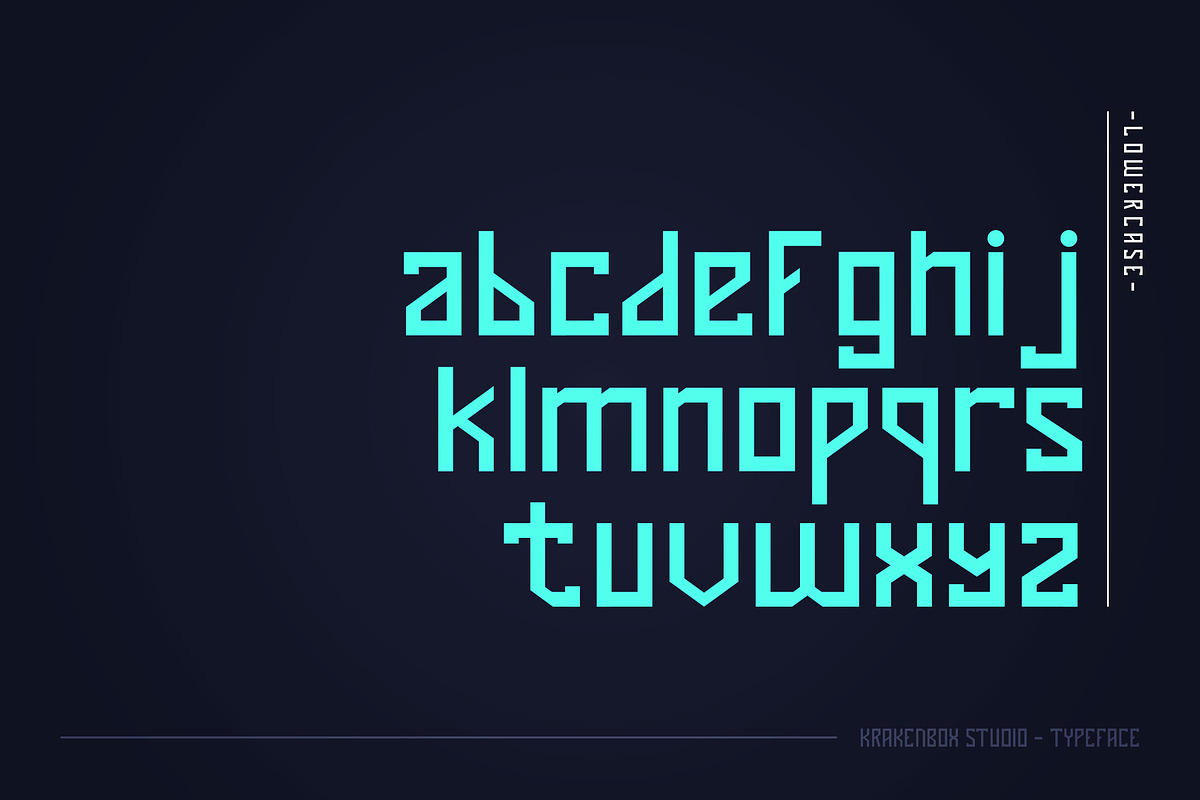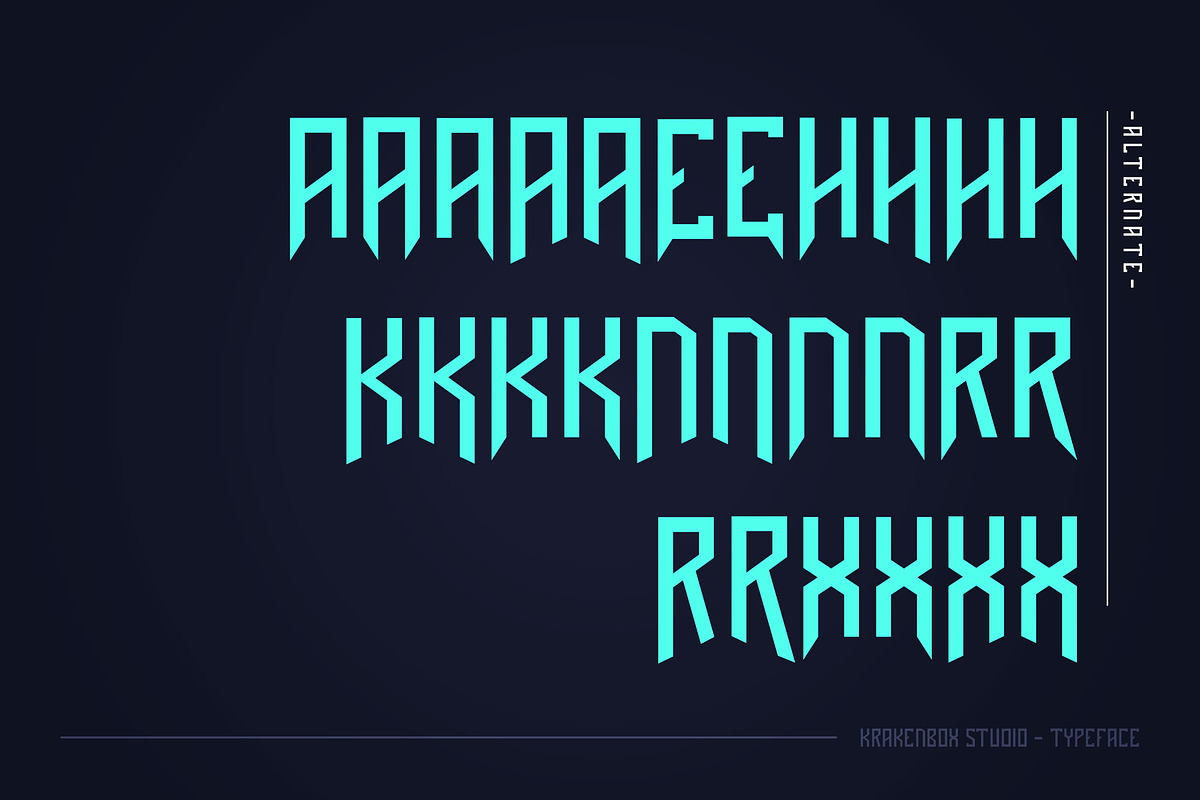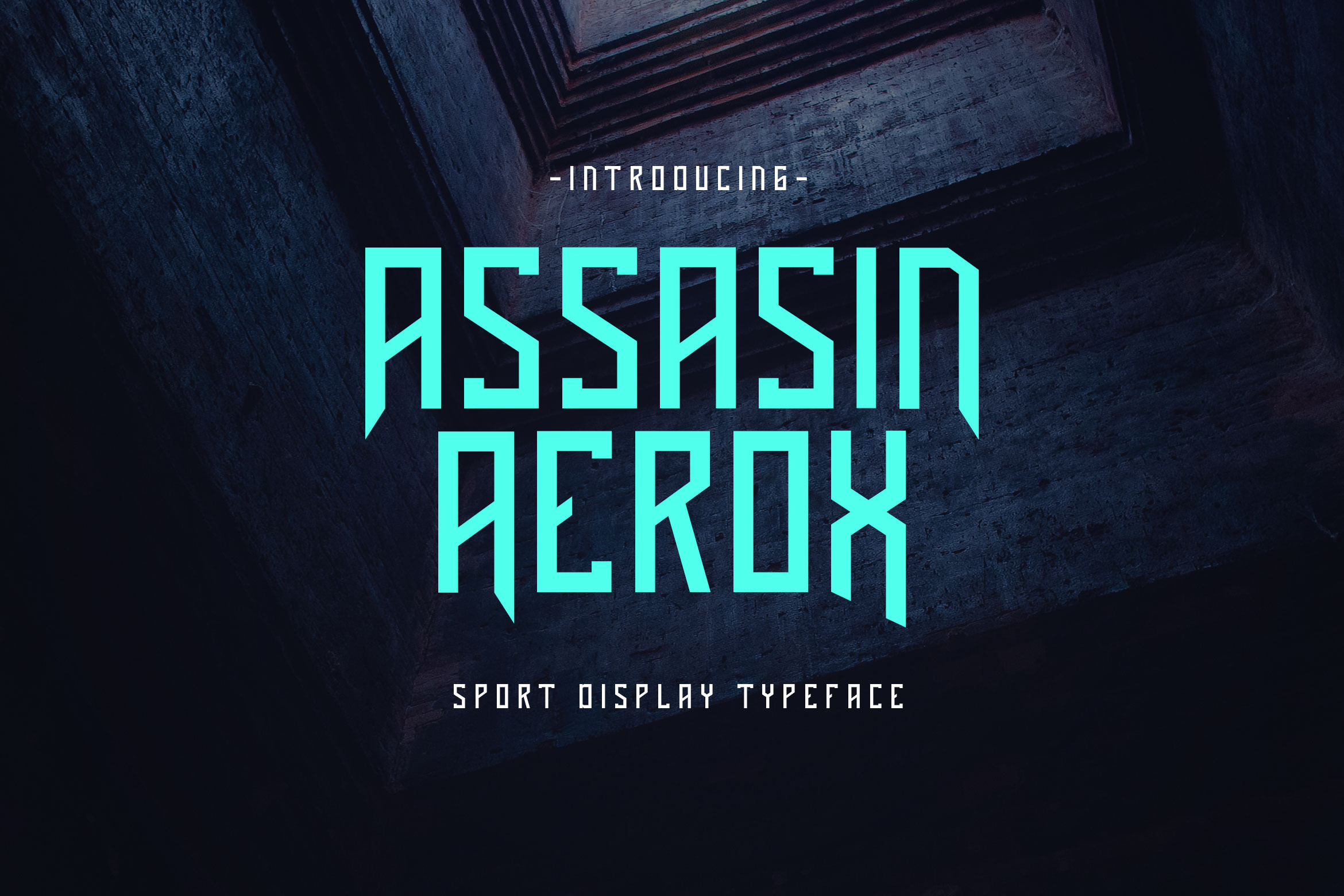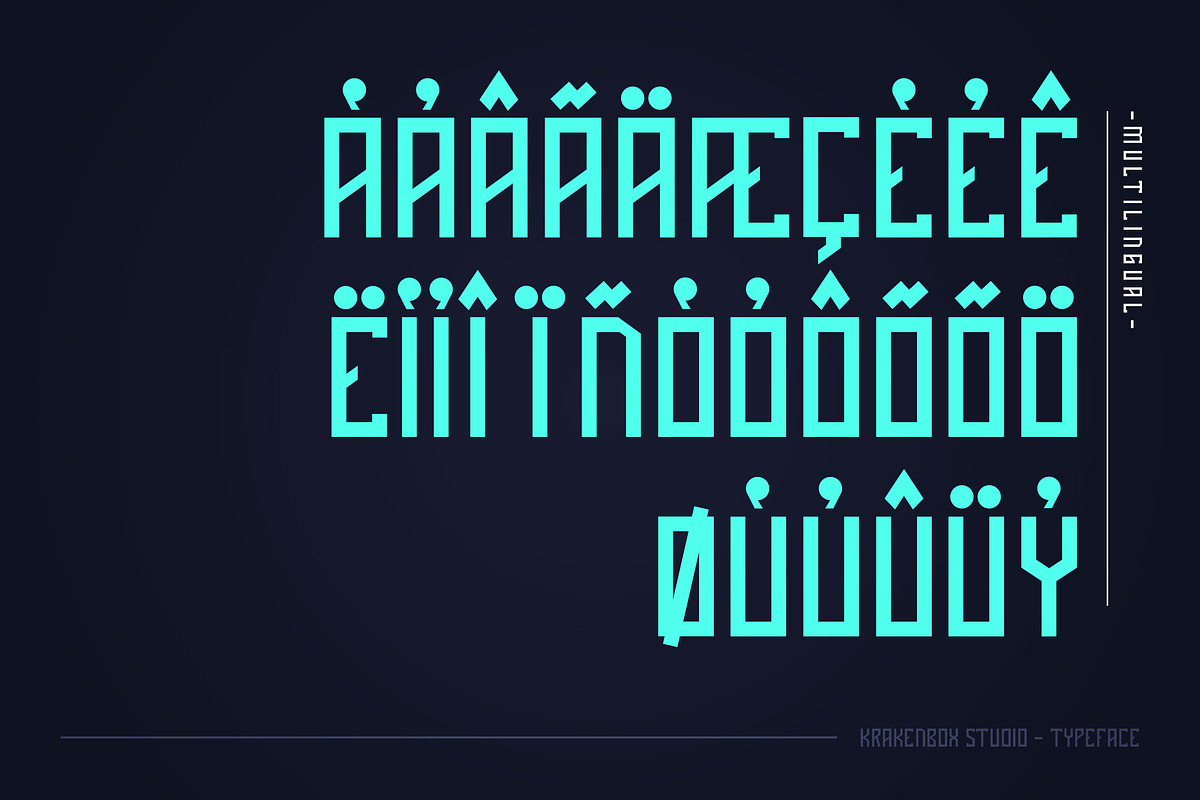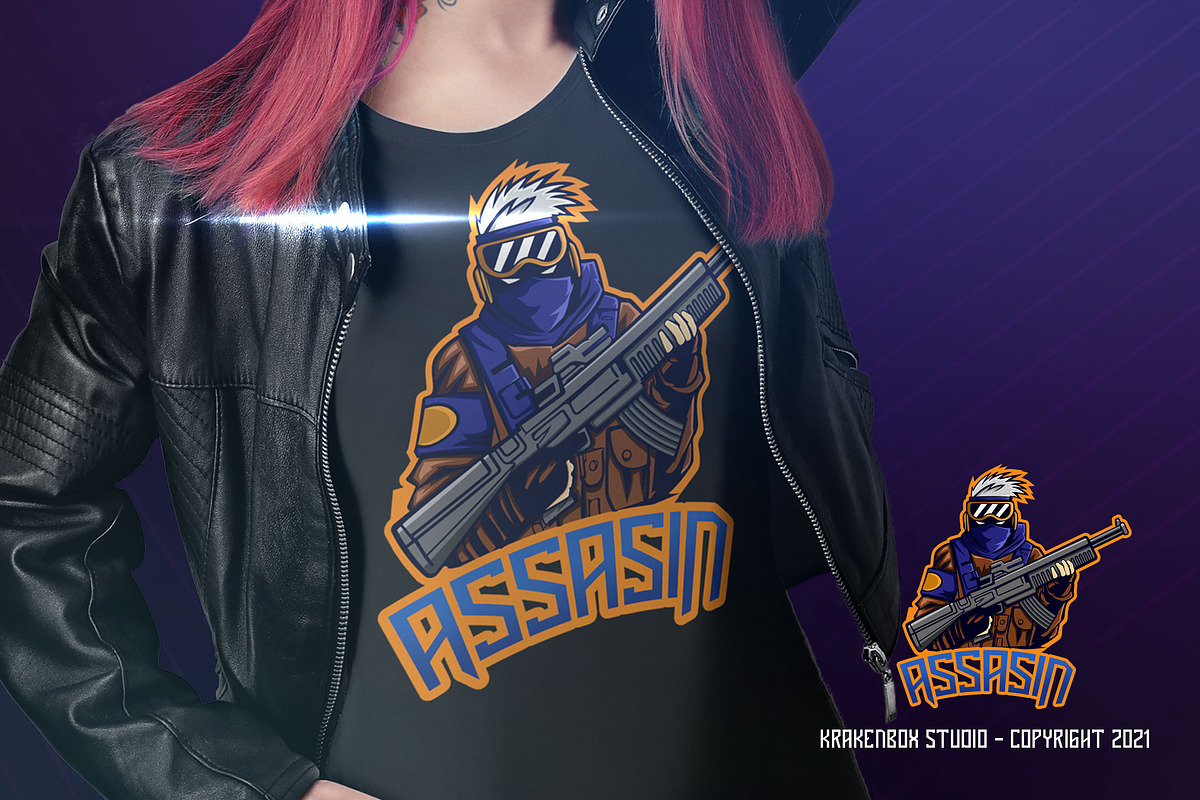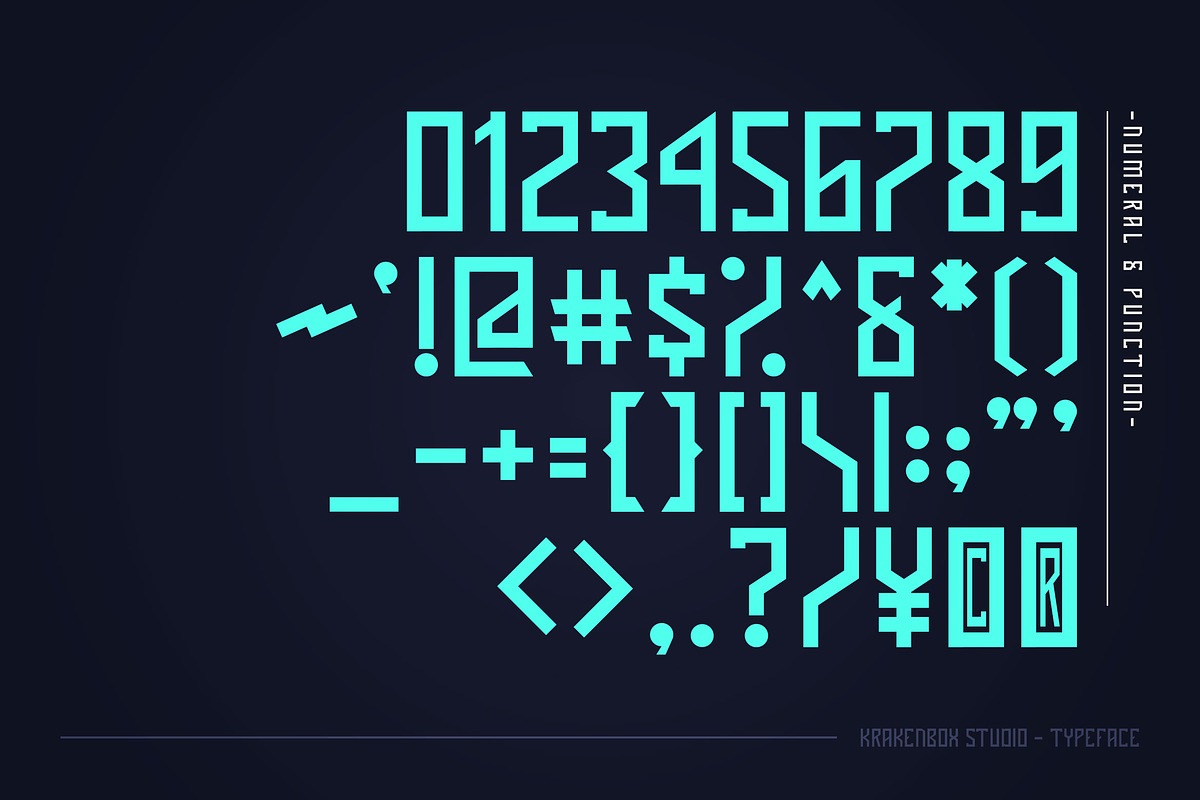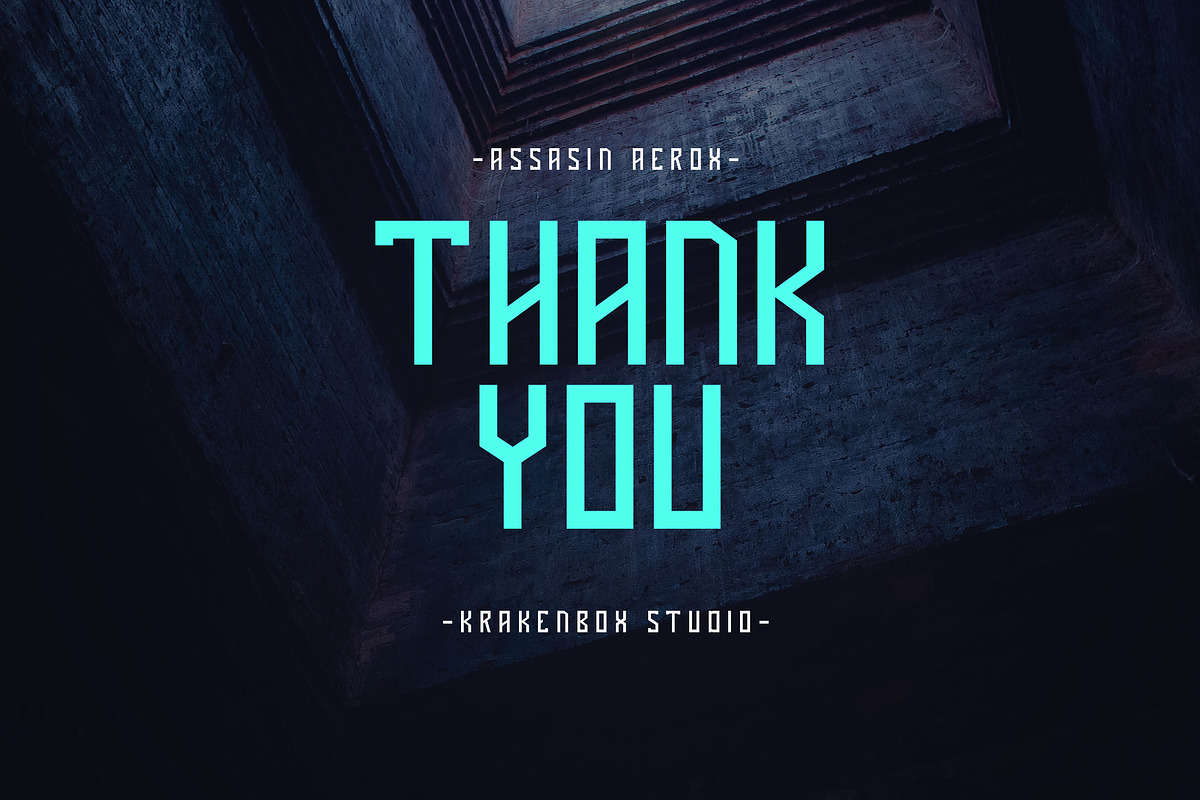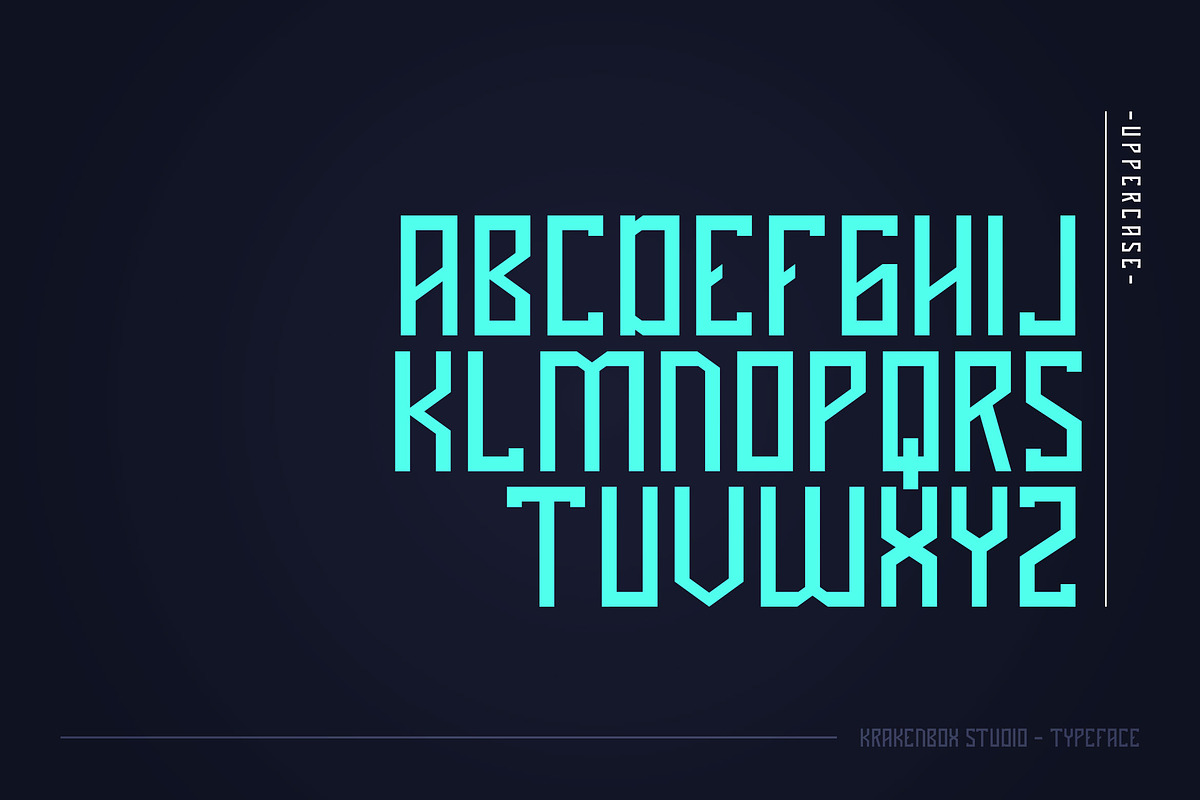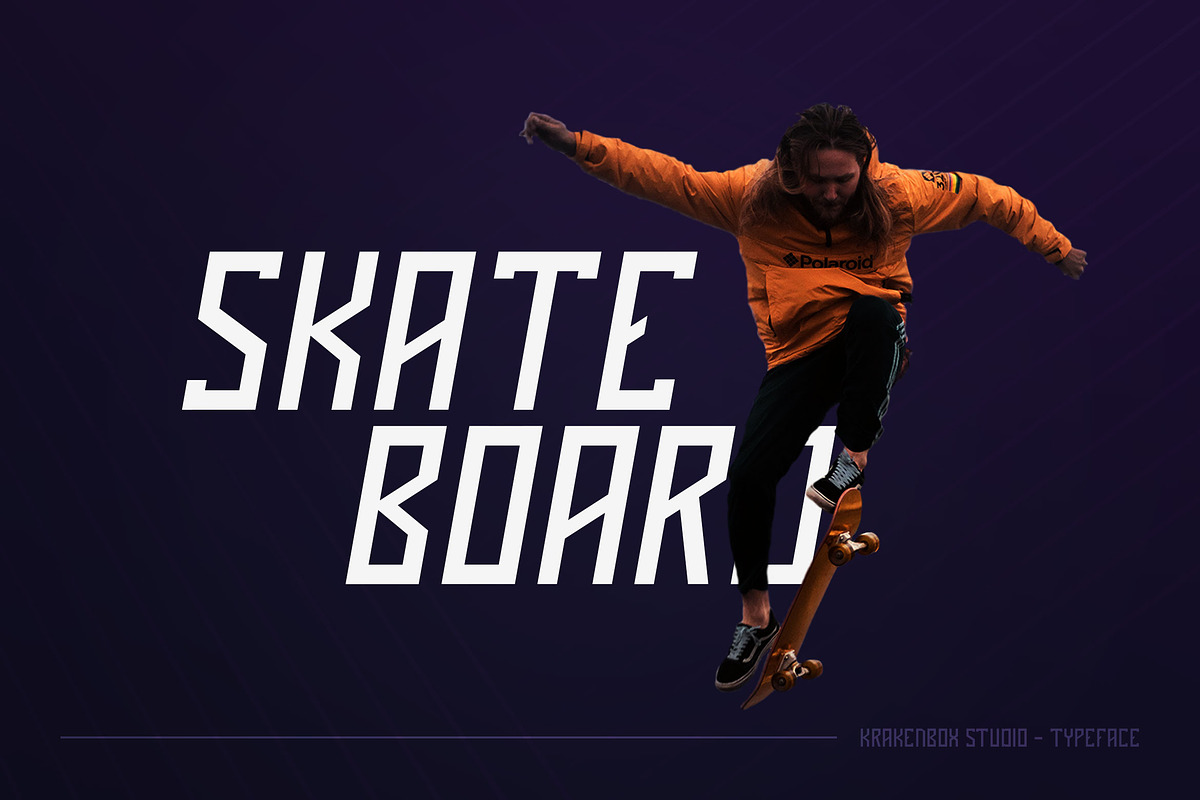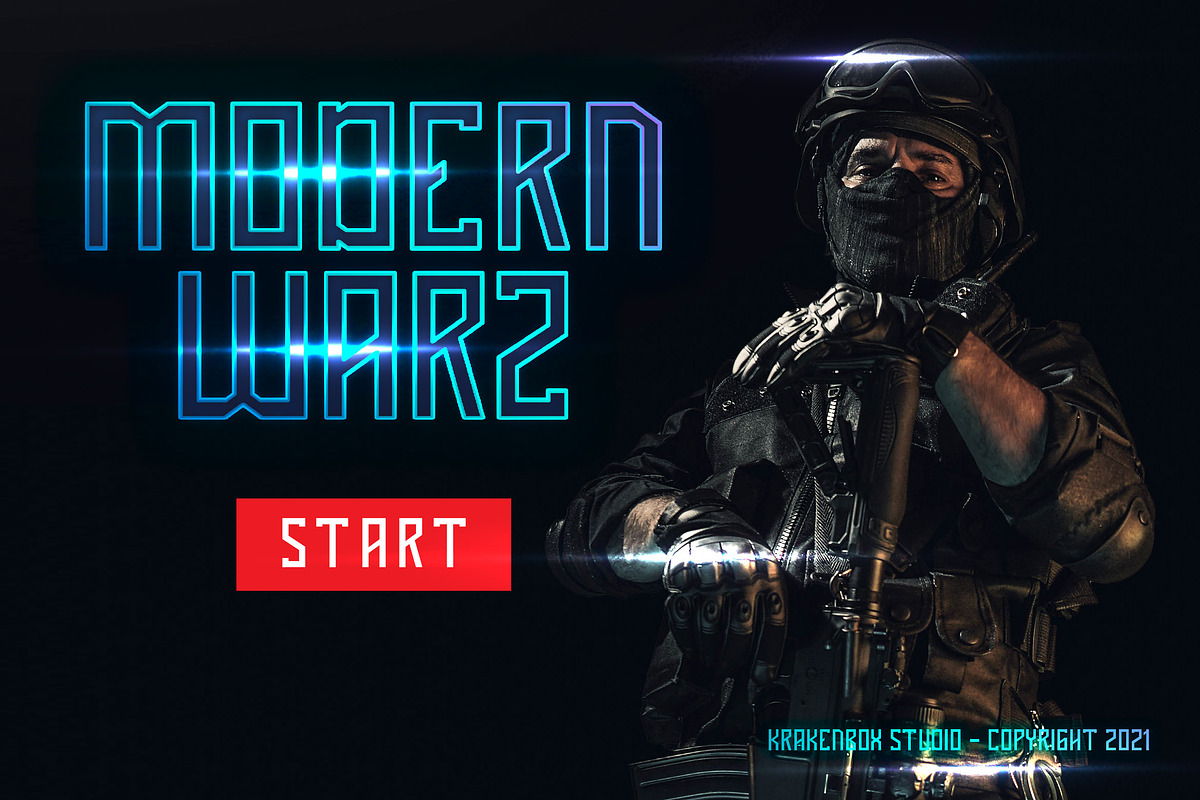
Assasin Aerox - Sport Typeface
Assasin Aerox is Sport Display Typeface. It has elegant, modern, and Cool. It’s a great font for fashion, apparel projects, signature, album cover, logo, branding, magazine, social media, & advertisements, but also works great for other projects.